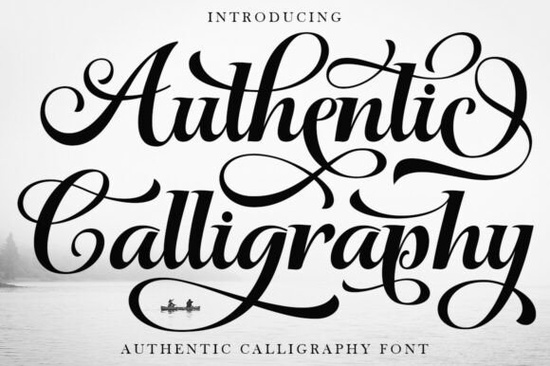
If you've ever looked at hand-lettered wedding invitations and wondered how to get that flowing, personal look on your own projects, the Authentic Calligraphy Font is a strong place to start. It mimics the natural movement of a pointed pen, with sweeping curves and dramatic flourishes that give each letter a handcrafted feel. Designers, crafters, and small business owners often reach for script fonts like this one when they need something personal and refined without hiring a calligrapher.
What makes this calligraphy font different from other script fonts?
There are hundreds of script fonts available, but not all of them capture the look of real penmanship. Some feel stiff or mechanical. Others look too casual for formal projects. The Authentic Calligraphy Font sits in a sweet spot. Its high-contrast strokes thick downstrokes and thin upstrokes create a natural rhythm that mirrors how a master calligrapher would write on paper.
Unlike many loose handwriting-style typefaces, this one keeps its letterforms consistent enough for professional use. You won't get awkward spacing or hard-to-read combinations. Each character connects smoothly, making it practical for both headlines and shorter text blocks like names and monograms.
Where does this font work best?
This typeface really shines in projects where elegance matters. Here are some popular uses among designers and sellers:
- Wedding stationery – invitations, RSVP cards, envelope addressing, table numbers
- Wine and beverage labels – premium branding for bottles, tasting menus, gift tags
- Romantic branding – logos, business cards, and packaging for boutiques, florists, and bakeries
- Social media graphics – quotes, announcements, and styled text overlays
- Print-on-demand products – mugs, tote bags, wall art with names or short phrases
If you're working on a design with a fairy-tale or princess-themed party aesthetic, this font pairs beautifully with soft color palettes and delicate illustrations. Its flourishes add just enough drama without feeling over the top.
How should you pair this font with other typefaces?
One common mistake with ornate script fonts is pairing them with another busy typeface. When everything is decorative, nothing stands out.
A better approach is to use the Authentic Calligraphy Font as your headliner the font that draws the eye first. Then pair it with a clean, simple sans-serif for body text or supporting information. Think fonts with generous letter spacing and minimal detail. This contrast lets the calligraphy's loops and curves take center stage.
For example, on a wedding invitation, you might set the couple's names in the calligraphy font and the event details in a light sans-serif. The result looks polished and easy to read. If you're exploring more options in this style, there are several beautiful script typefaces worth checking out for similar projects.
Is the font easy to use with alternate characters?
Yes, and this is where the font gets really fun to work with. The Authentic Calligraphy Font is PUA-encoded, which means every glyph, swash, and alternate character is accessible no special software tricks needed.
PUA encoding is especially helpful if you use basic design tools or platforms that don't always support OpenType features. You can copy and paste alternate characters directly, giving you more creative control over how your text looks. This is useful for things like:
- Swapping out a repeating letter so your design doesn't look repetitive
- Adding decorative swashes to the beginning or end of a word
- Creating custom monograms with flourished initials
If you also work on educational or classroom materials, you might keep a few different font styles on hand. A clean classroom-friendly typeface pairs well with the calligraphy font when you need both formal and approachable options in your toolkit.
Quick checklist before you start your next project
- Check your license – make sure the font's terms cover your intended use (personal, commercial, print-on-demand)
- Test readability – preview the font at the size you'll actually use; ornate scripts can lose detail at small sizes
- Choose a simple partner font – pair the calligraphy with a clean sans-serif to keep designs balanced
- Explore alternates – access the PUA-encoded glyphs to customize letter combinations and add variety
- Keep it minimal – use this font for names, headlines, and short phrases rather than long paragraphs